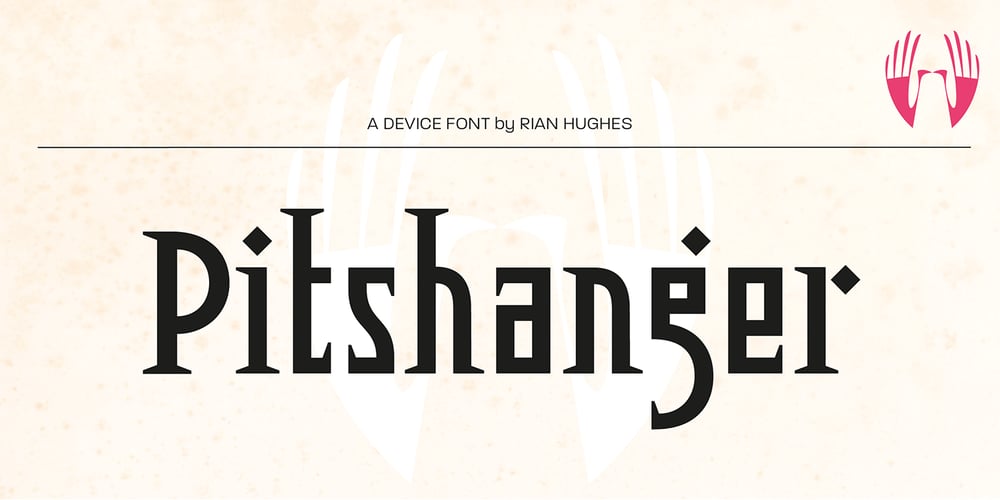
Pitshanger Font Family was designed by Rian Hughes and published by Device. Pitshanger contains 2 styles and family package options. Pitshanger is loosely derived from a shop sign in Limogues, France.